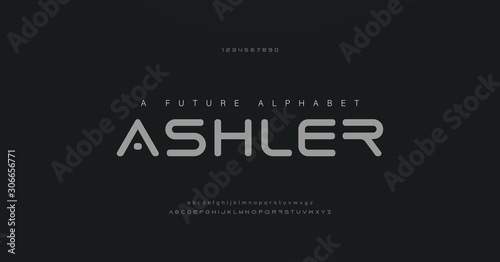
digital abstract modern alphabet fonts and number. Typography electronic sport music future creative font and numbers design concept. vector illustration